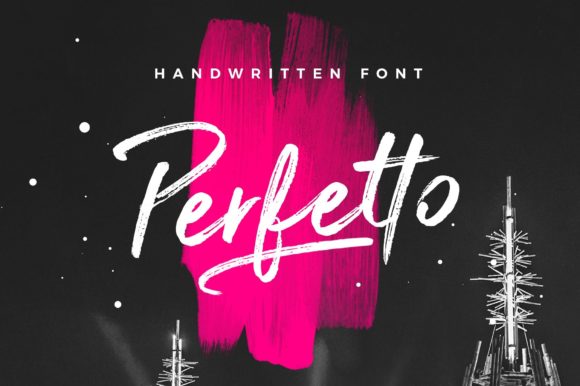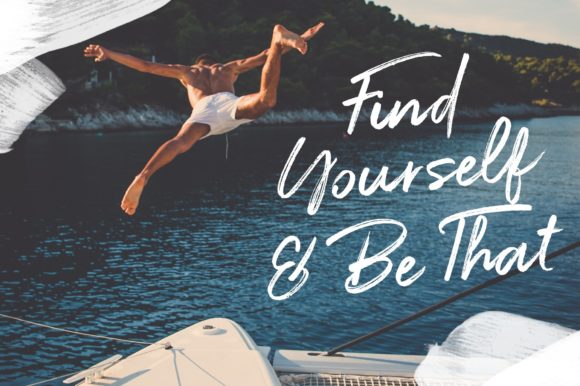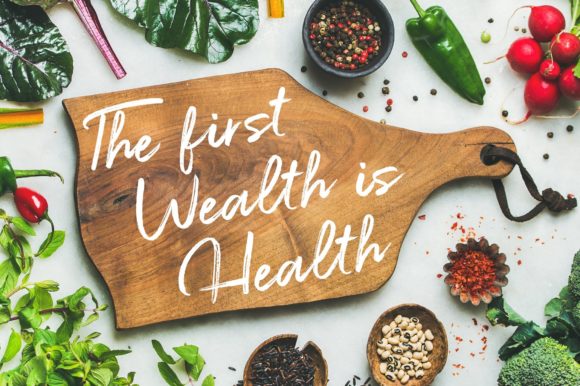
About Perfetto Font
Perfetto is a casual, brushed and cursive script font. It is defined by smooth curves and is perfect for fashion branding or editorial designs. Add it confidently to your projects, and you will love the results.